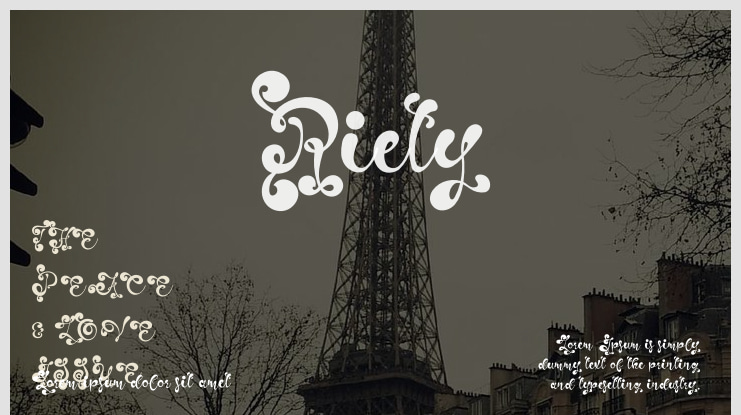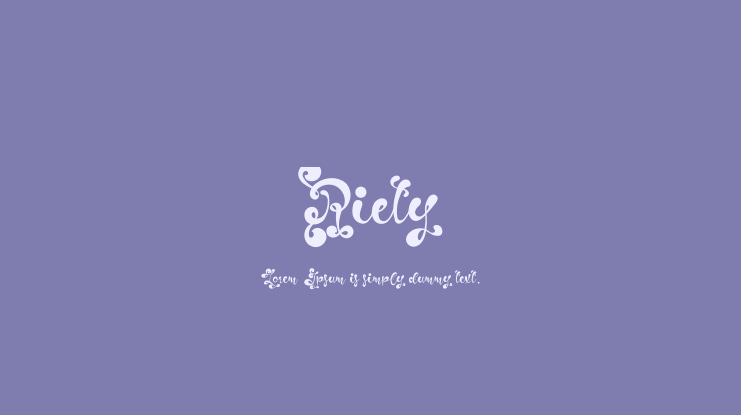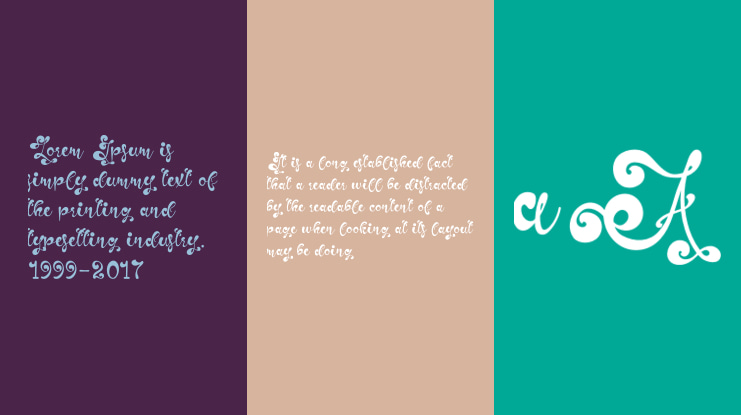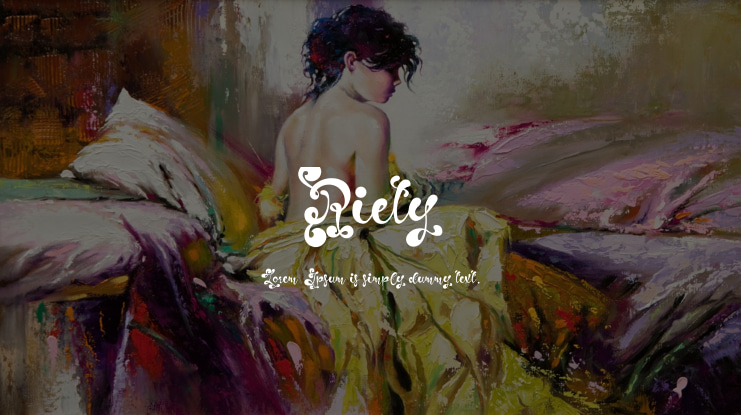
Riety Font
Get ready to explore Riety Font: a fusion of vintage and modern styles. Mix retro charm with contemporary allure to create stunning vintage logos, eye-catching posters, and retro branding. Elevate your designs with Riety Font and infuse them with the magic of nostalgia! 🎨✨